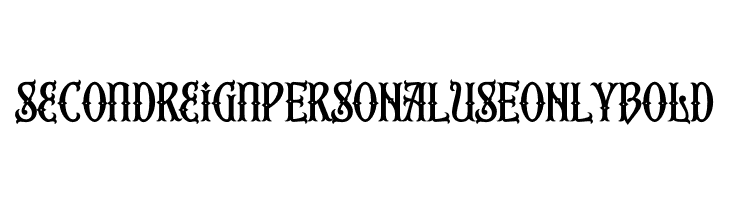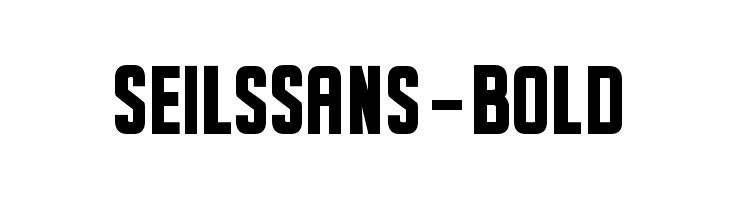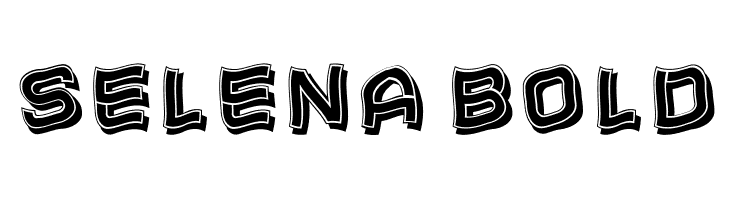
A bold, gothic-style font with intricate, ornamental details.
A bold, modern sans-serif typeface with strong, uniform strokes.
A bold, three-dimensional font with a playful, retro style and shadowed outline.